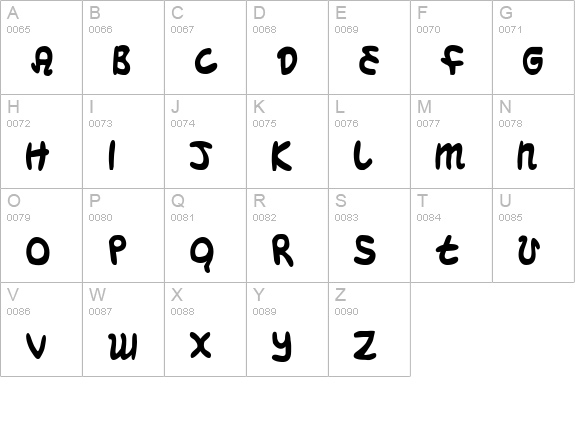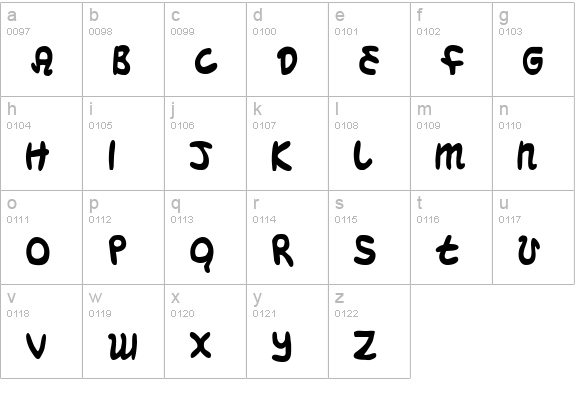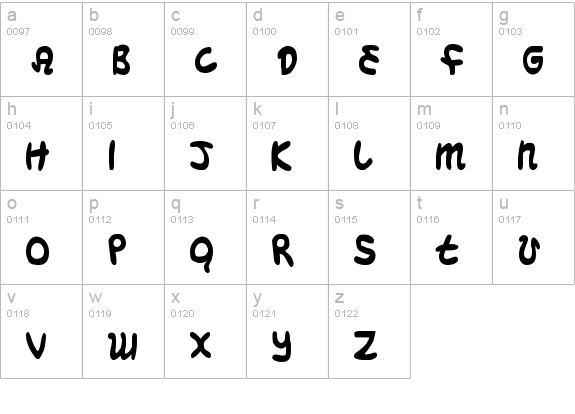
Magic Beans Condensed Font Details
Magic Beans Condensed is a distinctive, condensed-width variant in the Magic typeface family \xE2\x80\x94 well suited to design and typography projects.
Magic Beans Condensed is a whimsical and playful font that will add a touch of magic to your designs. With its condensed style and unique characters, this font is perfect for creating eye-catching headlines, posters, and branding materials. The quirky and enchanting look of Magic Beans Condensed will captivate your audience and bring a sense of fun to any project. Best of all, Magic Beans Condensed is completely free to download at FontsMarket.com! This means you can easily access this delightful font and start using it in your creations right away. Whether you're working on a personal project or a professional design, Magic Beans Condensed is sure to bring a touch of charm and creativity to your work. Download it now and let the magic begin!